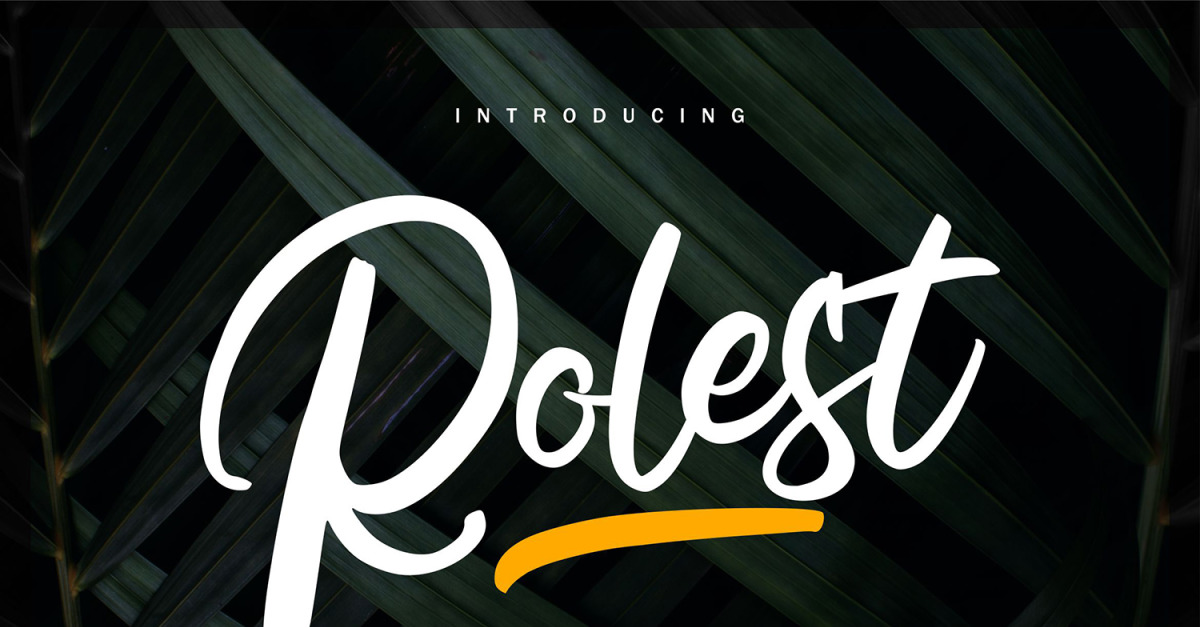
Rolest | Modern Bold Cursive Font
**Rolest | Modern Bold Script Font** with a calligraphy style, So beautiful on invitation like greeting cards, branding materials, business cards, quotes, posters, and more!